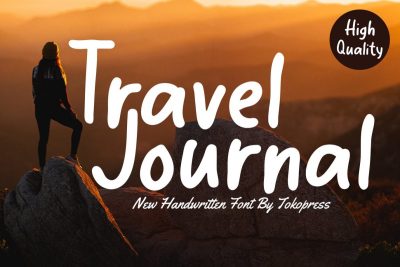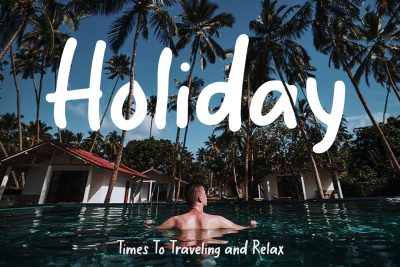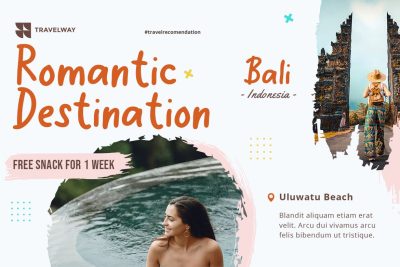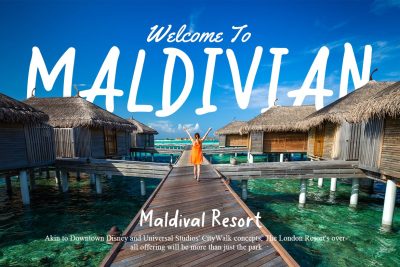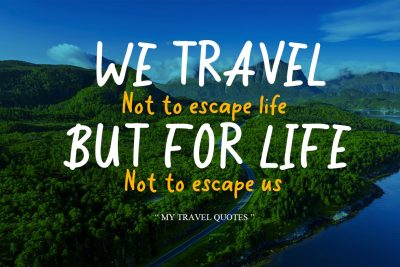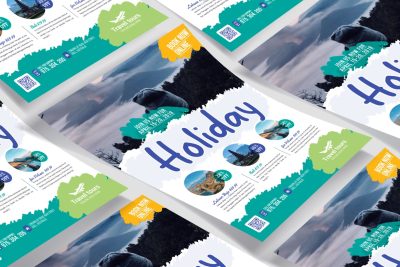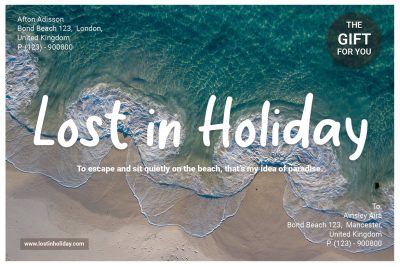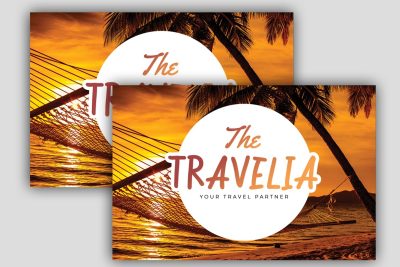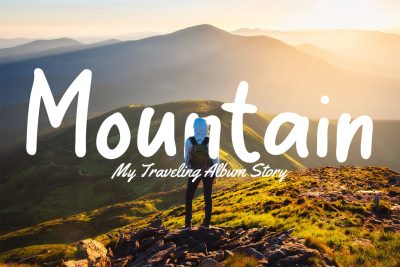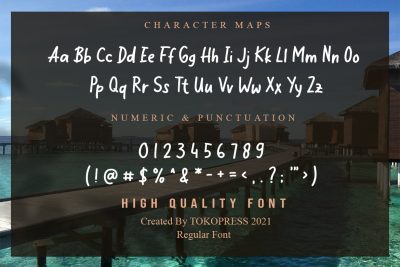
Handwriting font Travel Journal is a bold, expressive typeface designed to capture the essence of adventure and exploration. This font combines thick, rounded strokes with a casual handwritten style, creating a look that feels both personal and energetic. With its slightly uneven letters and natural flow, Travel Journal gives the impression of a handwritten note, adding an authentic touch to any design. The fontโs friendly appearance makes it ideal for projects that aim to inspire and connect with viewers on a personal level.
Additionally, handwriting font Travel Journal is versatile and works well across various media, whether digital or print. Its bold, clear structure ensures readability, making it perfect for titles, quotes, and headings. This font adds warmth and personality to each word, making it particularly suited for travel-themed projects, adventure blogs, and creative branding. Travel Journal brings an adventurous spirit to designs, encouraging viewers to embrace curiosity and exploration.
Travel Journal is perfect for travel bloggers, adventure brands, and designers working on projects with a personal touch. For instance, travel bloggers can use this font to create engaging titles, blog headers, and social media graphics. The fontโs casual style makes readers feel as if they are reading personal journal entries, making the content more relatable and immersive. Additionally, itโs an excellent choice for travel itineraries and travel-themed printables, enhancing the adventurous feel.
Adventure brands and outdoor gear companies can also benefit from Travel Journal. This font adds a unique, handwritten quality to logos, product labels, and packaging, making brands appear approachable and down-to-earth. Its organic style connects with audiences who value authenticity and adventure, making it ideal for brands targeting outdoor enthusiasts.
Moreover, content creators and designers focused on travel, lifestyle, and personal development can use Travel Journal to enhance their branding. This font is ideal for quote graphics, digital scrapbooking, and any visuals that need a bold, adventurous tone. Overall, handwriting font Travel Journal is a fantastic choice for anyone looking to add personality, warmth, and a spirit of exploration to their designs. Its bold, natural look leaves a lasting impression, making content feel inviting and memorable.